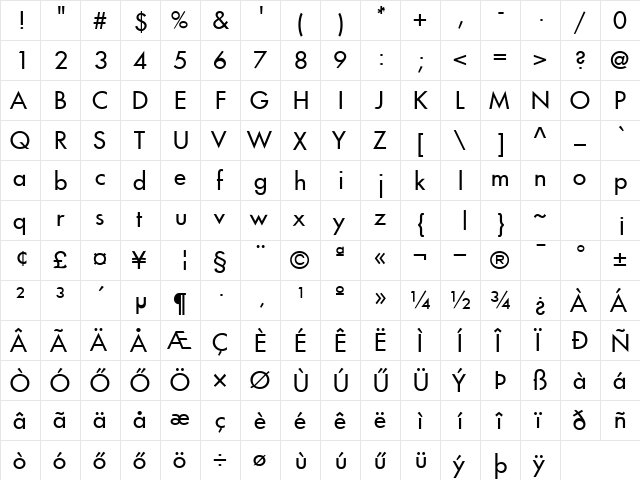
HFutura2 Normal
Design Context for HFutura2 Typeface
HFutura2 channels digital-age aesthetics through its sharp, structured letterforms — ideal for brands that want to signal innovation.
Pro Tip: Use HFutura2 in combination with a neutral sans for body text. Let it define the brand voice in headlines while keeping reading comfortable elsewhere.